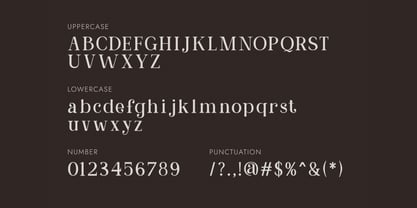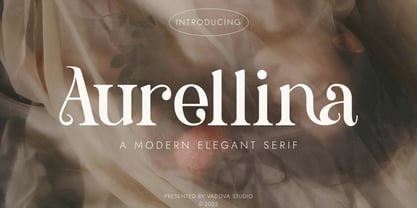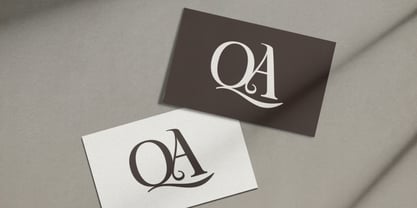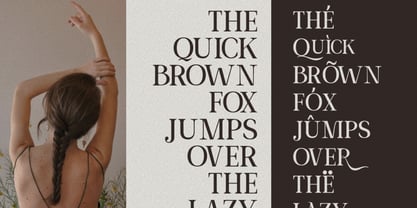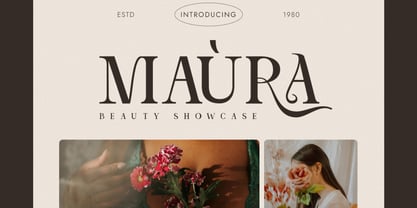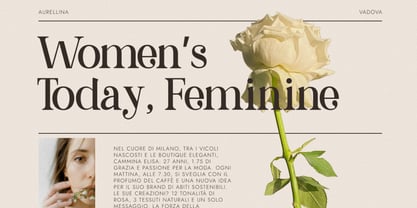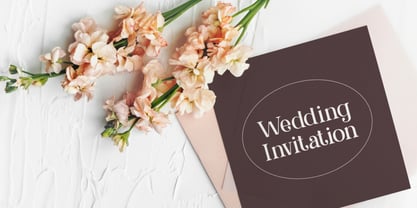
Aurellina
by Vadova Std
The Aurellina Font Family was designed by and published by Vadova Std. Aurellina contains 1 styles. More about this family
Aurellina is a modern elegant serif typeface designed with graceful curves, refined contrast, and subtle decorative details. The font features balanced proportions, smooth transitions, and carefully crafted serifs that create a soft yet sophisticated visual character. Aurellina is relevant for projects that require a refined and emotional visual tone, such as luxury branding, fashion editorials, beauty campaigns, wedding materials, magazine layouts, and high-end packaging. Its elegant serif construction works well for headlines, logos, quotes, and curated typography where atmosphere and sophistication are essential.